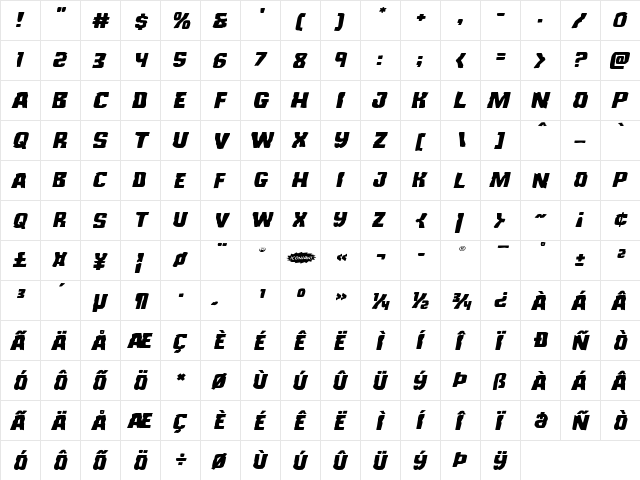
Monster Hunter Expanded Italic Expanded Italic
Design Context for Monster Hunter Expanded Italic Typeface
Monster Hunter Expanded Italic is a composed and adaptable typeface that performs quietly and consistently across a wide range of design contexts. The dynamic lean of this cut emphasises speed and emphasis in any layout.
Pro Tip: Use Monster Hunter Expanded Italic for emphasis, pull quotes, and subheadings where its slanted energy can add rhythm to the layout.